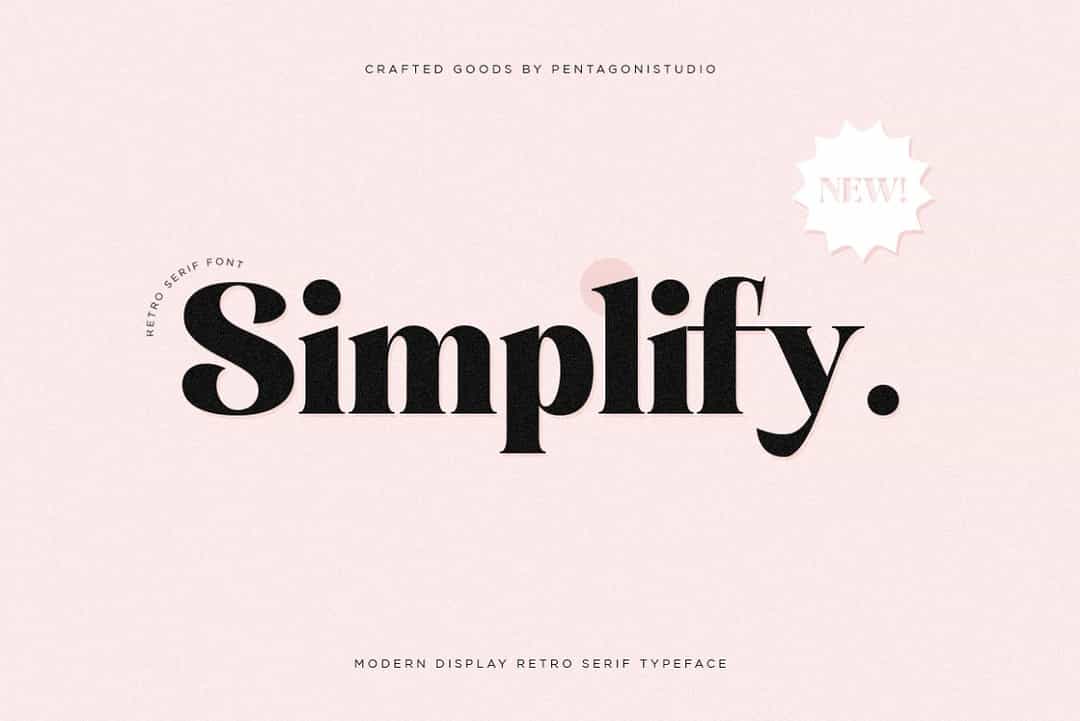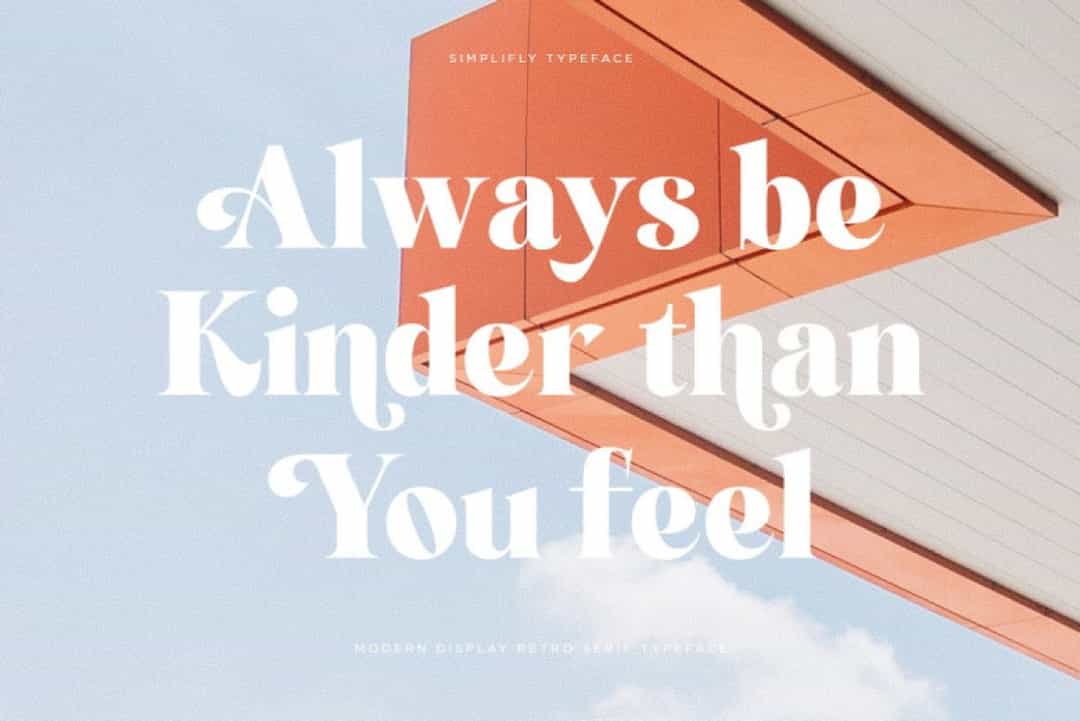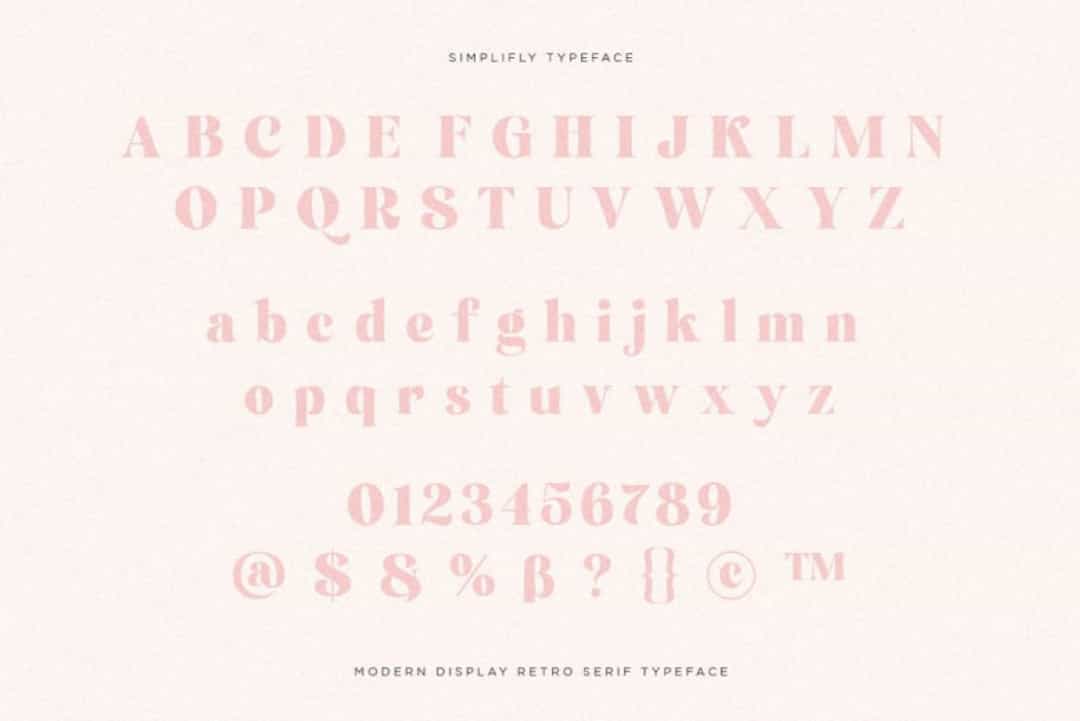
Simplify is a sleek and contemporary show serif typeface designed with elegance in mind. Perfect for use across many applications, add it to your stylish projects for stunning results! Additionally, its PUA encoded plugin makes accessing its various glyphs and ligature much simpler!